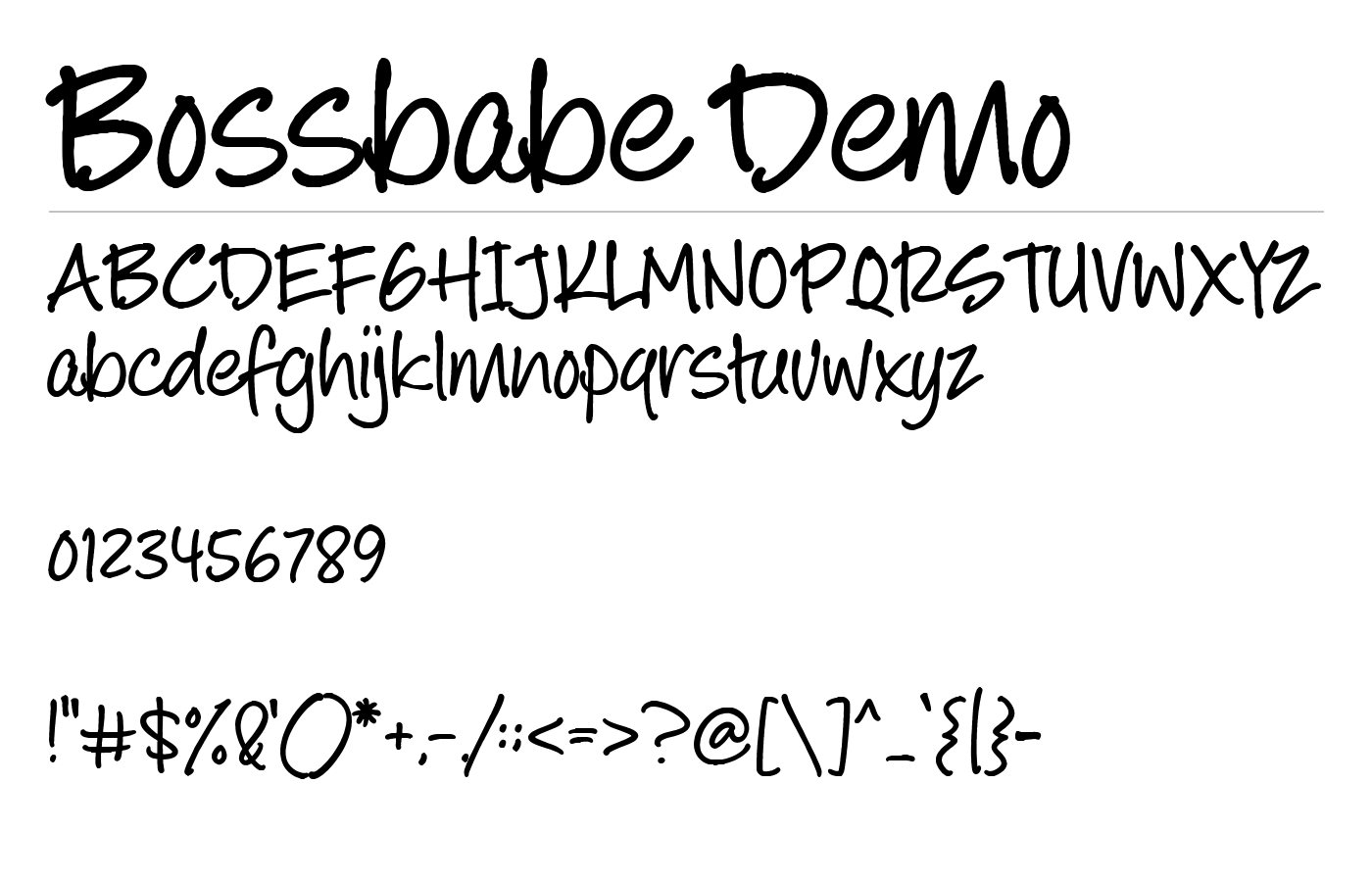
Bossbabe Demo is a lively, handwritten sans serif font that feels casual and energetic with its natural, brush-like strokes and slightly irregular letterforms. It has a medium weight and normal width, offering clear readability with a playful personality perfect for branding, social media, and creative projects that want to convey friendliness and approachability. This font works well in headlines or logos that need a personal, informal touch while maintaining good legibility.
Bossbabe Demo Font
About Bossbabe Demo Font